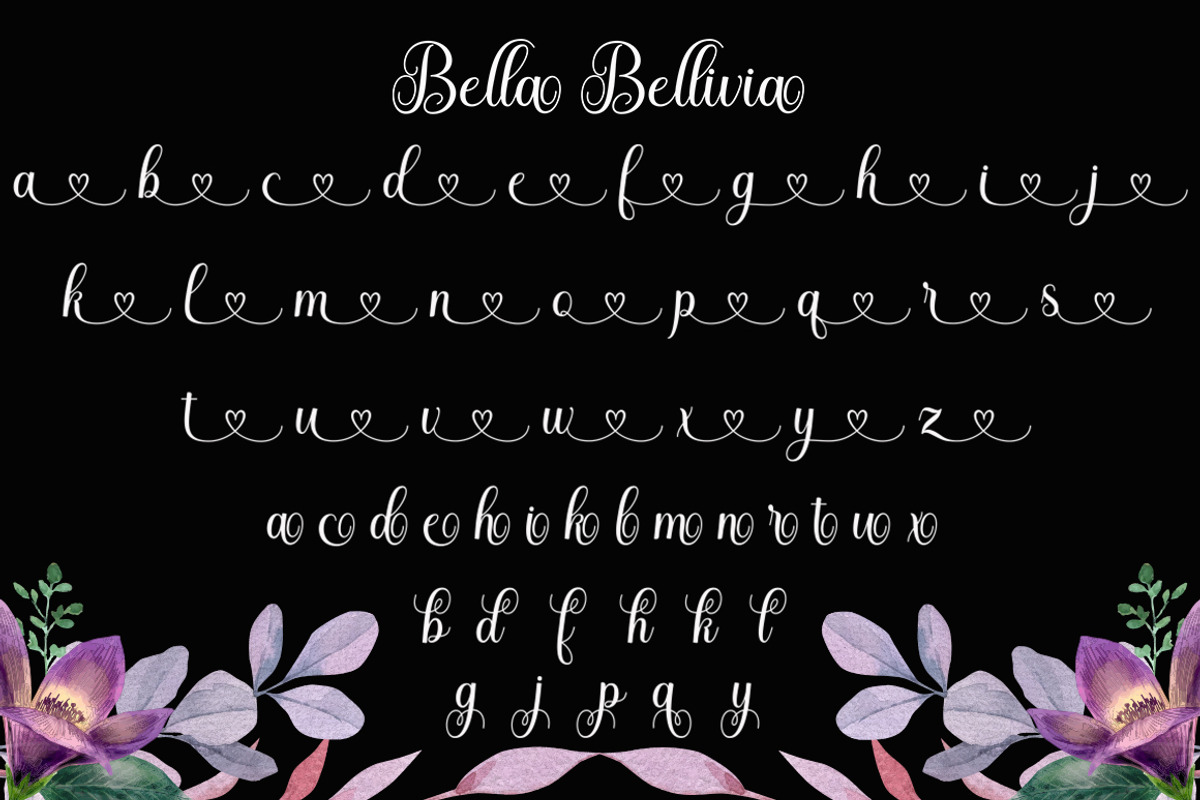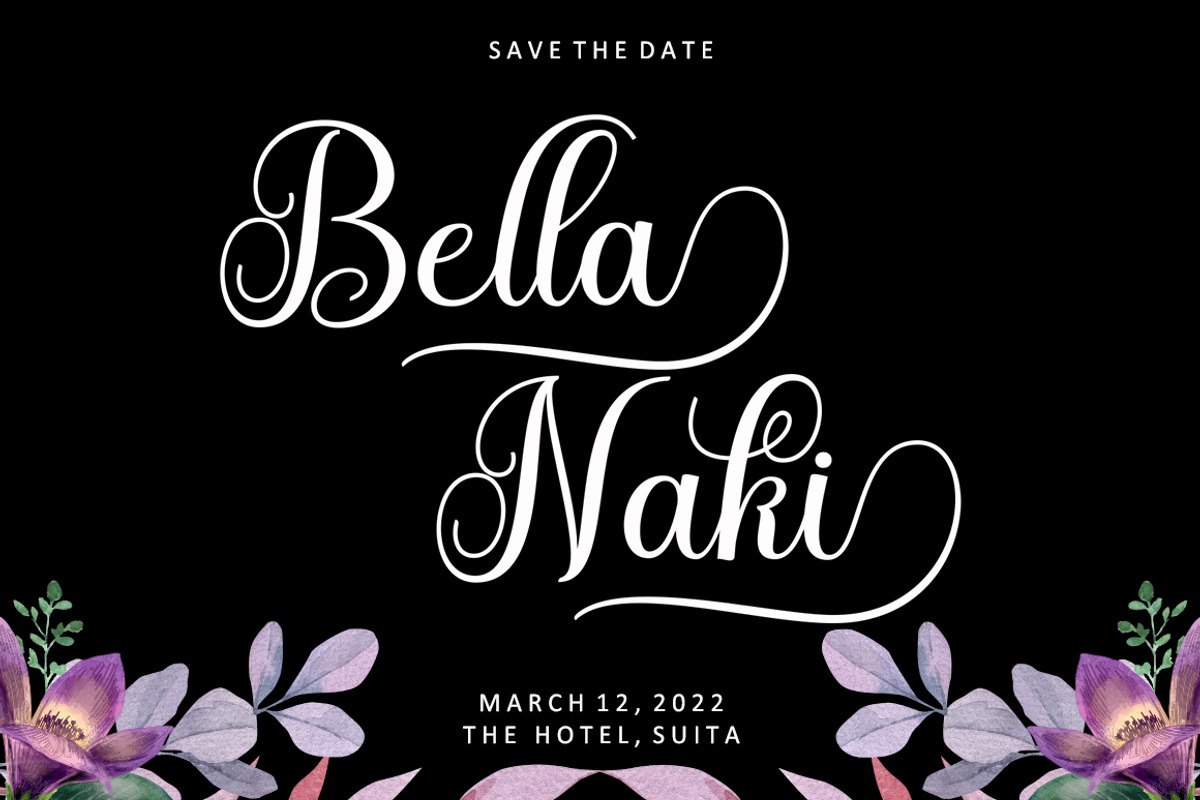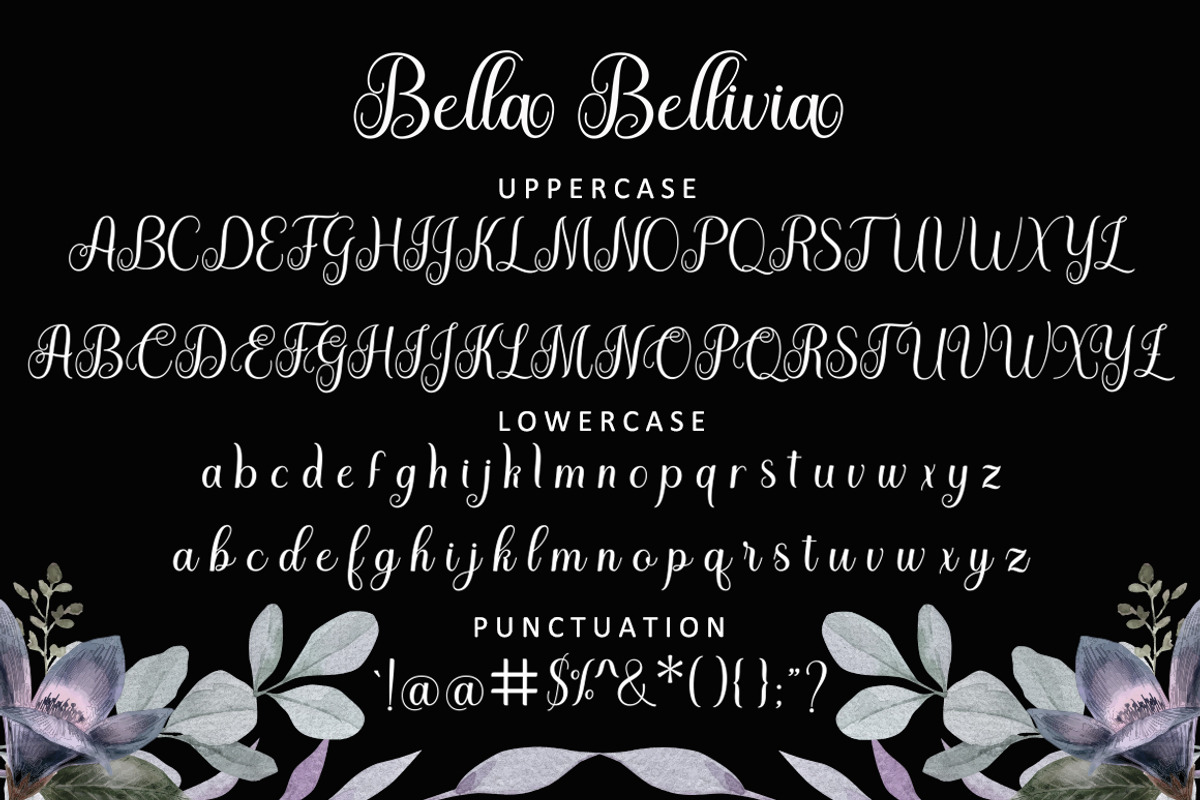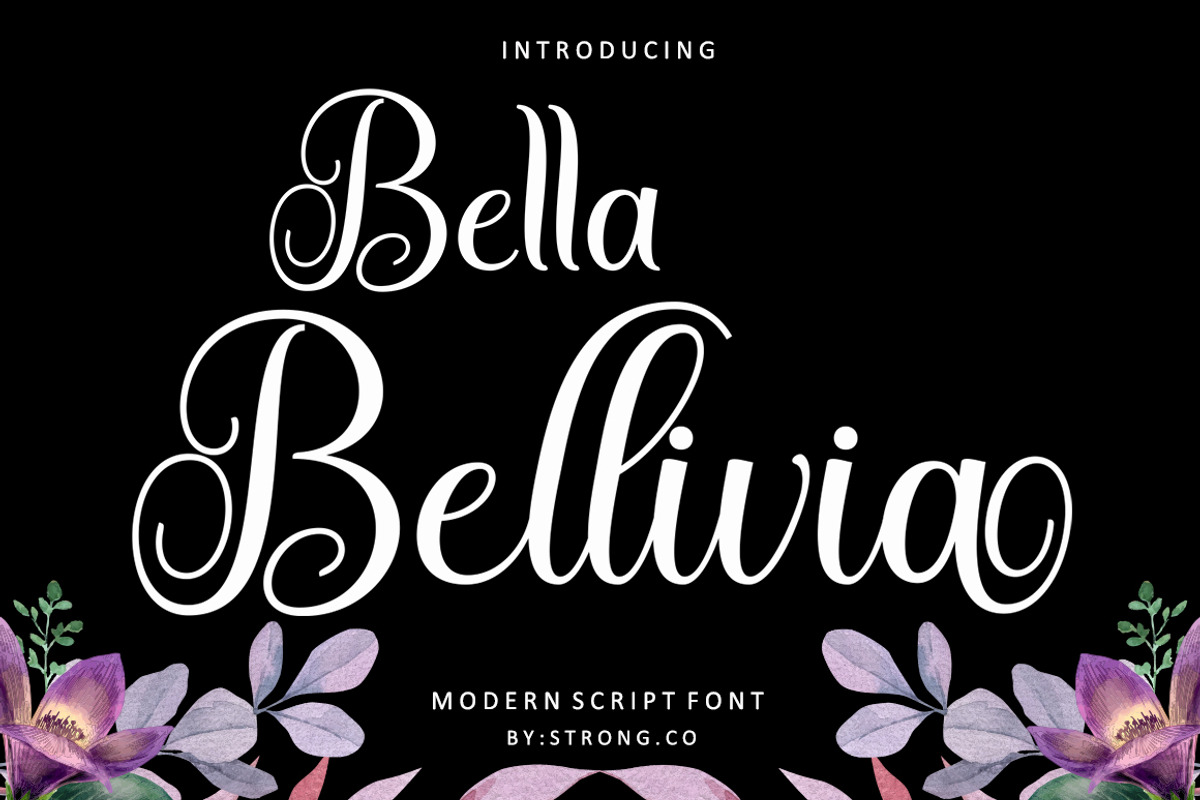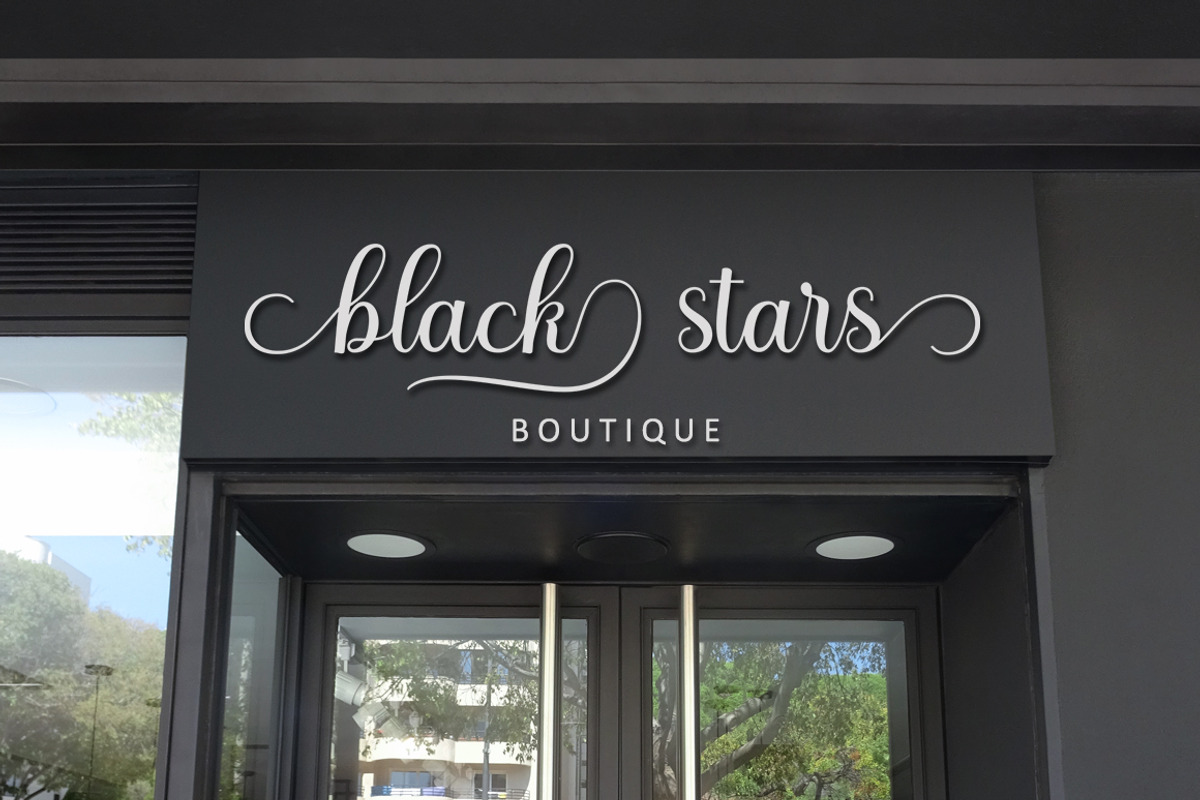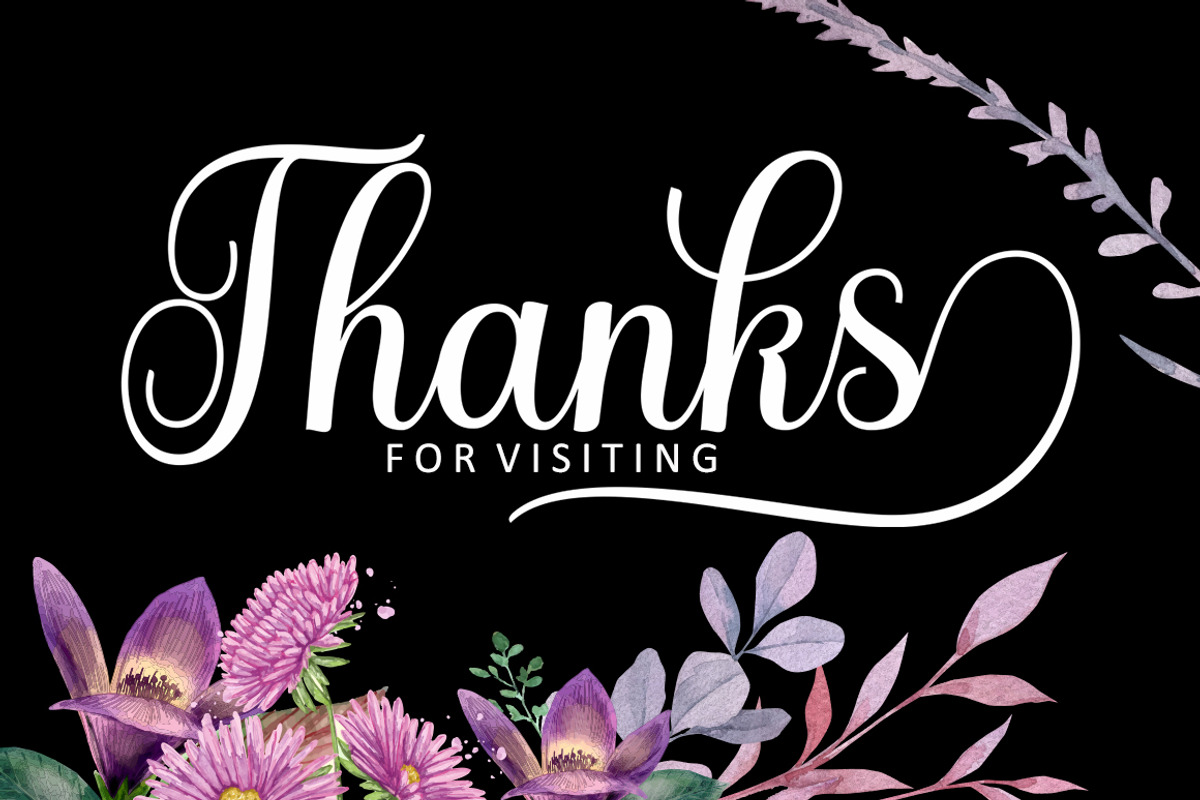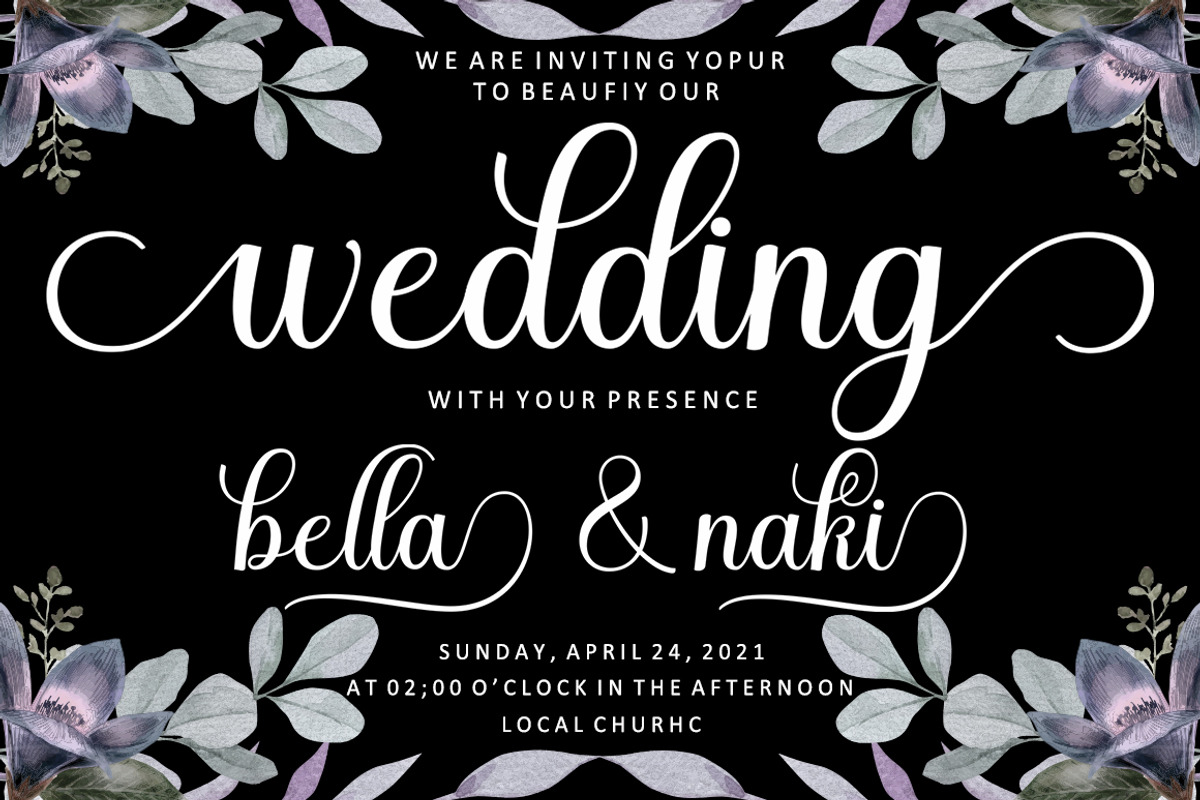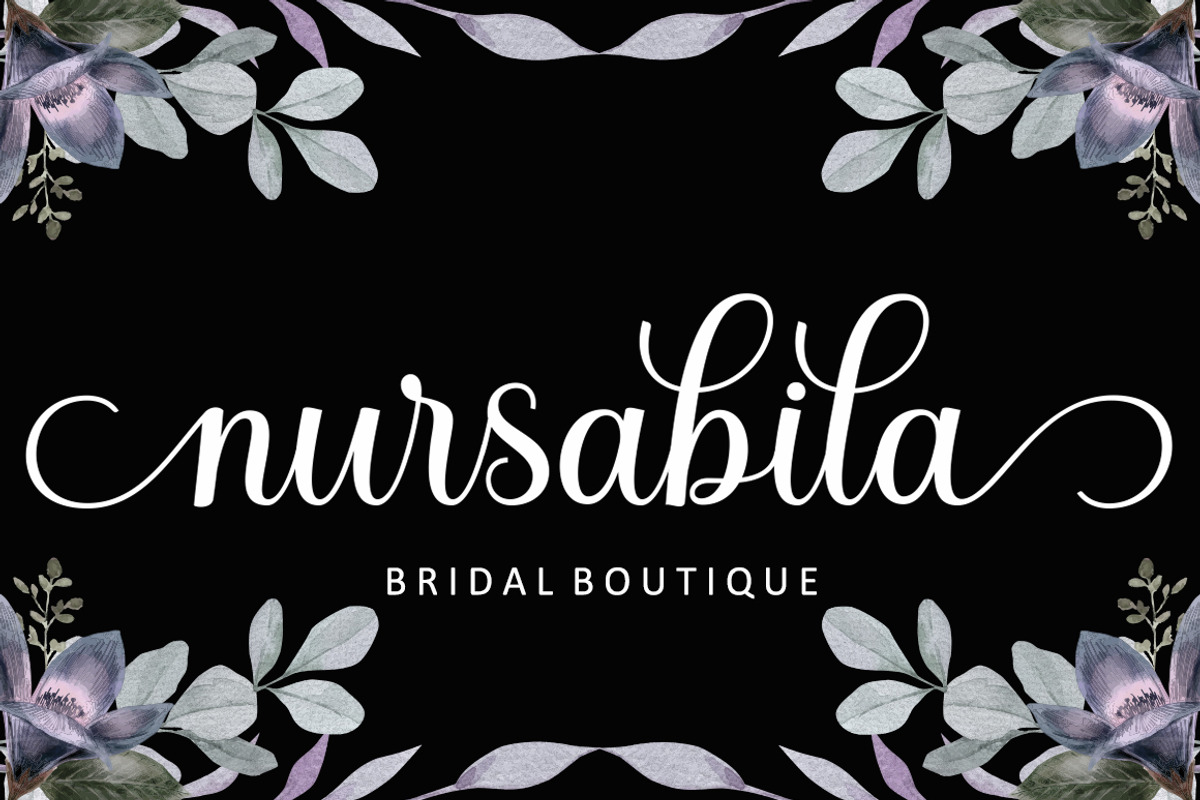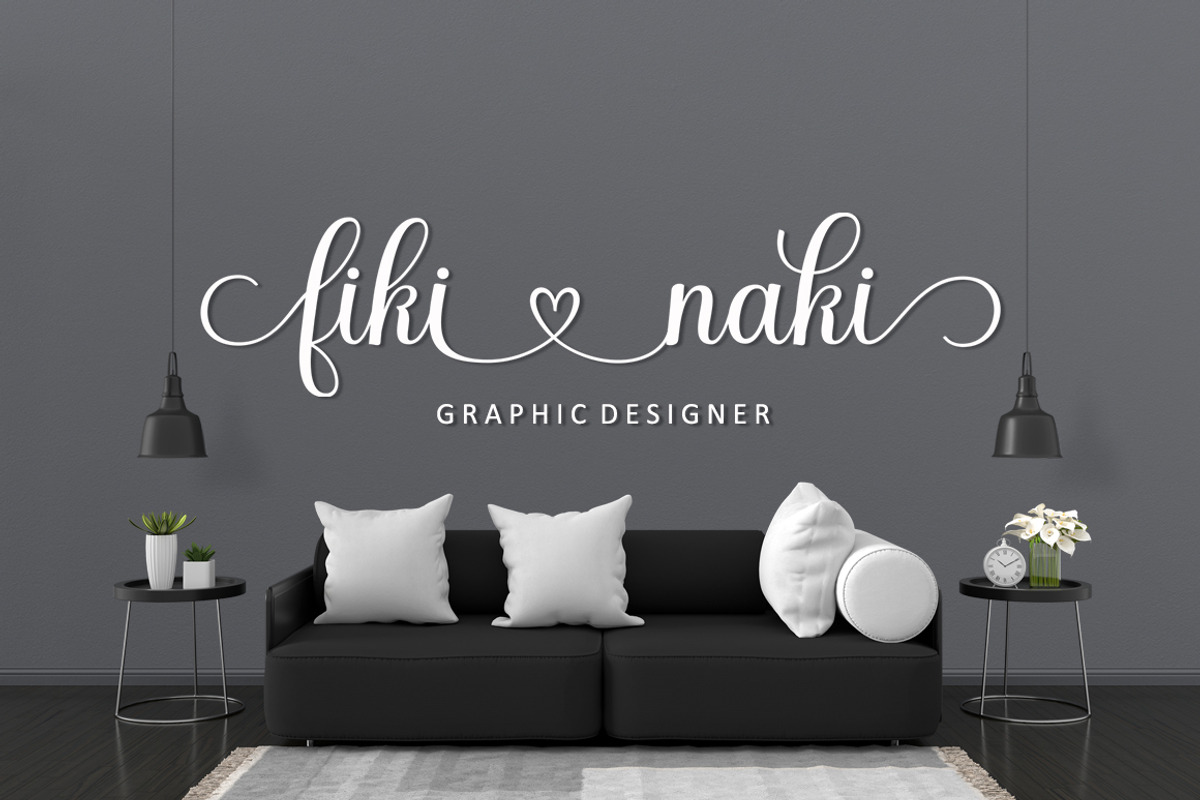
Bella Bellivia
Bella Bellivia is a new quality calligraphy font. This high-quality script font comes with a modern and vintage twist to it. Inspired by a mix of copper calligraphy with a handlettering style. OpenType features with Stylistic Alternatives, Swash, Ligatures, Stylistic set. It allows you to mix and match letter pairs to match your designs, and it also features modern ornaments to make this font look elegant and flawless. Bella Bellivia is attractive as smooth, clean, feminine, sensual, glamorous, simple and very easy to read. Classic styles are very suitable to be applied in various formal forms such as invitations, labels, menus, logos, fashion, make up, stationery, letterpresses, romantic novels, books, greeting / wedding cards, packaging, labels, and others.